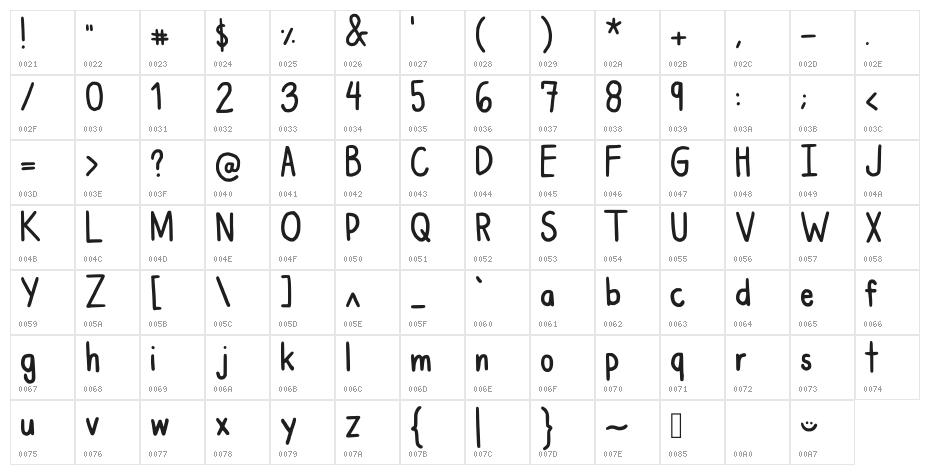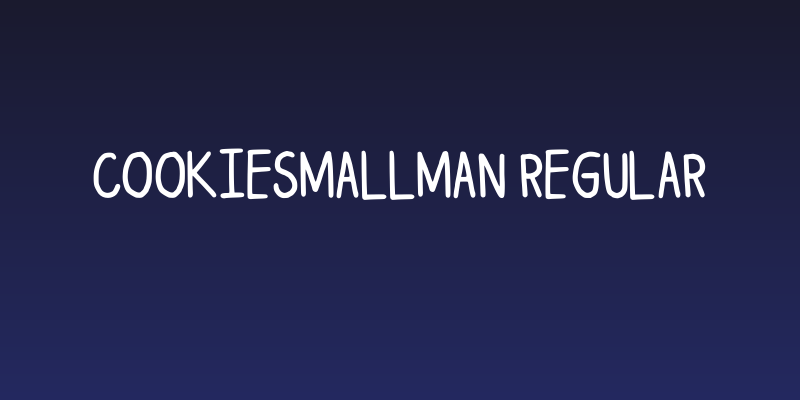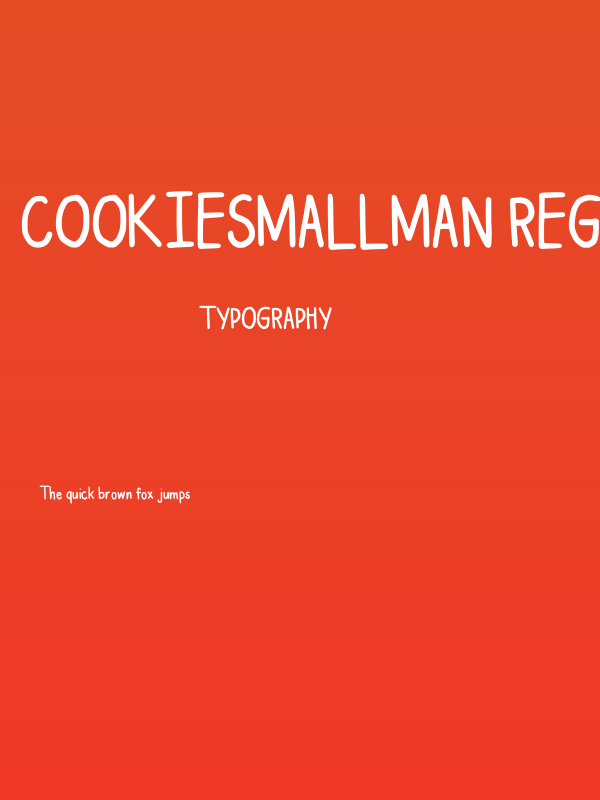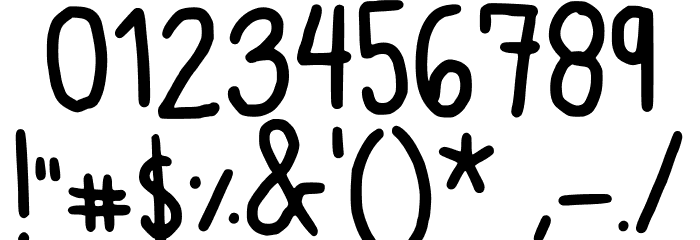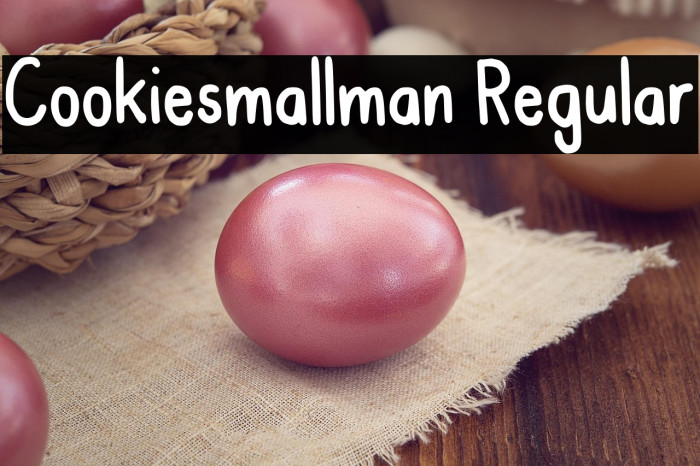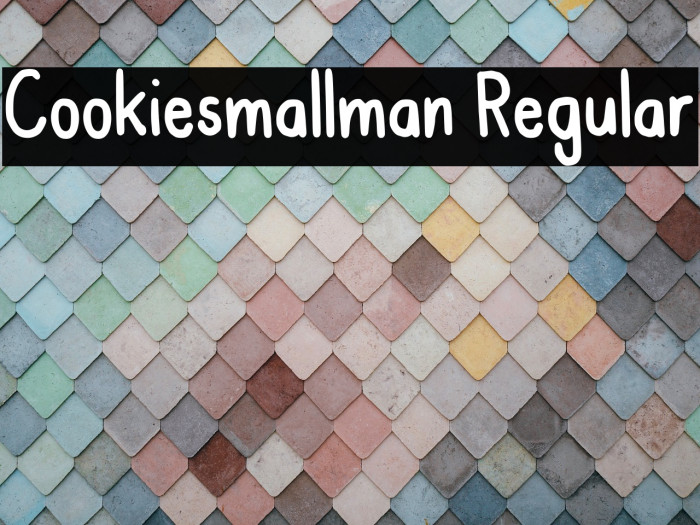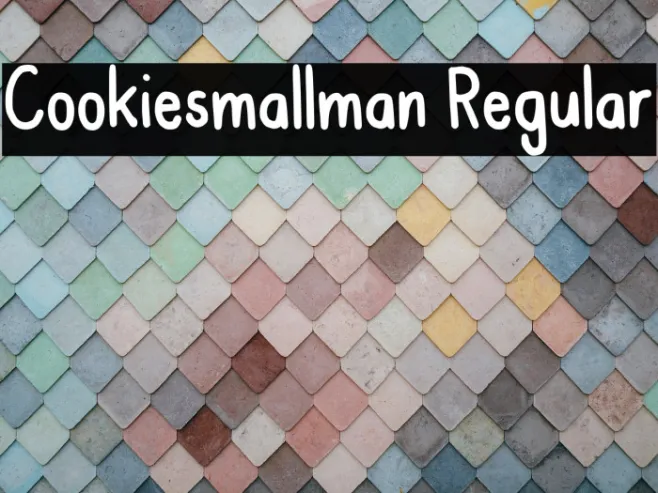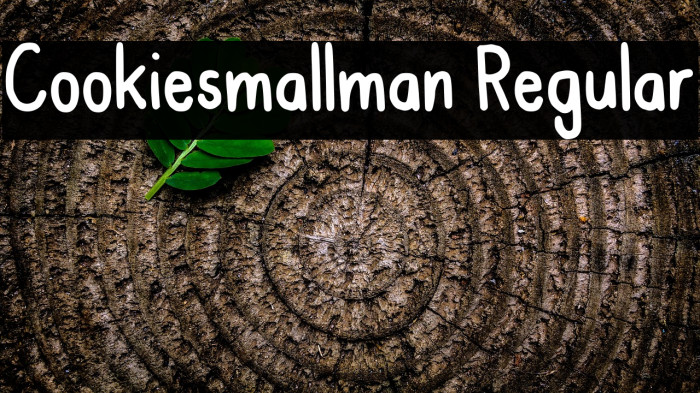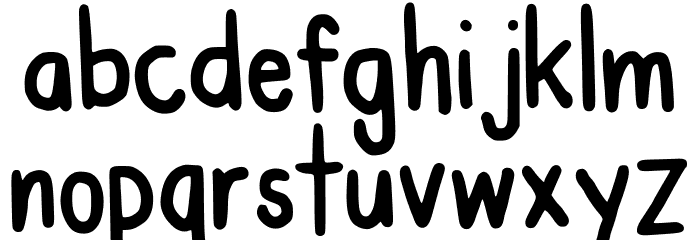
Cookiesmallman Regular Font
Cookiesmallman Regular Description
This playful and whimsical font features a handwritten style with a casual and friendly appearance. The characters are slightly uneven, adding to its charm and informal feel. The uppercase letters are bold and rounded, while the lowercase letters maintain a consistent flow with a slightly narrower form. Numbers and special characters are designed to match the playful aesthetic, making them suitable for creative projects. The overall look is approachable and fun, perfect for designs that require a personal touch.